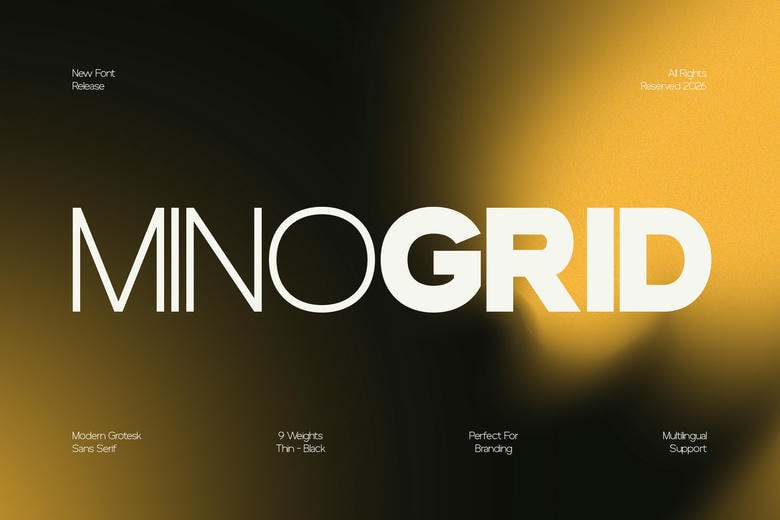
Minogrid Font
Minogrid is a modern grotesk sans serif font family with a practical design and a clean, modern look. It takes inspiration from classic grotesk styles, featuring crisp lines, subtle details, and a neutral feel that suits many design projects.
Minogrid comes in a full range of weights and styles, helping you create a clear visual hierarchy and keep your designs consistent. Its balanced letter shapes are easy to read, making it a strong choice for bold headlines and longer text.
Minogrid Sans Serif Font